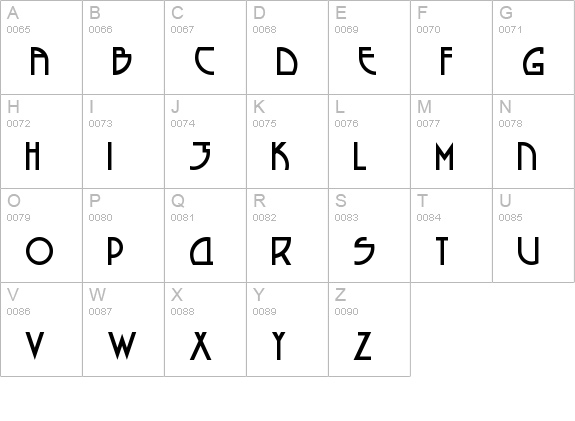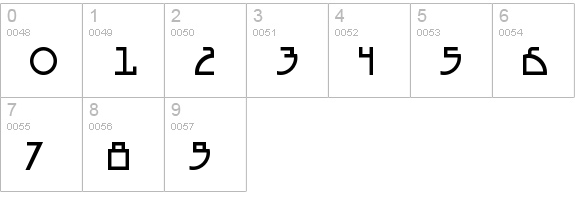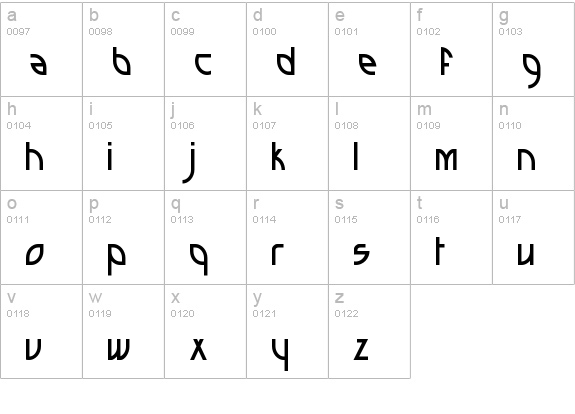
Seized Future A Font Details
Introducing Seized Future A, a captivating and futuristic font that will transport you into a world of endless possibilities. With its sleek and edgy design, this font exudes a sense of power and innovation, making it perfect for any project that requires a modern and cutting-edge aesthetic. Seized Future A is not just an ordinary font, it is a work of art that will leave a lasting impression on anyone who lays eyes on it. Its bold and dynamic letterforms demand attention and convey a sense of strength and determination. Whether you're creating a sci-fi movie poster, designing a tech startup logo, or crafting a futuristic advertisement, Seized Future A will elevate your design to new heights. What makes Seized Future A even more remarkable is that it is freely available to download at FontsMarket.com. Yes, that's right – you can get your hands on this incredible font without spending a dime. FontsMarket.com is a trusted source for high-quality fonts, and Seized Future A is just one of the many exceptional options they offer. By choosing Seized Future A, you not only gain access to a captivating font but also the freedom to unleash your creativity without any constraints. Whether you're a professional designer or a hobbyist, this font will empower you to bring your visions to life with ease. Don't miss out on the opportunity to add Seized Future A to your font collection. Download it for free at FontsMarket.com today and embark on a design journey that will transport you to a seized future of endless creativity and inspiration.